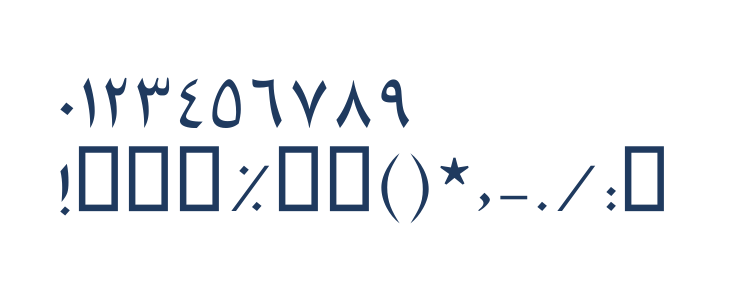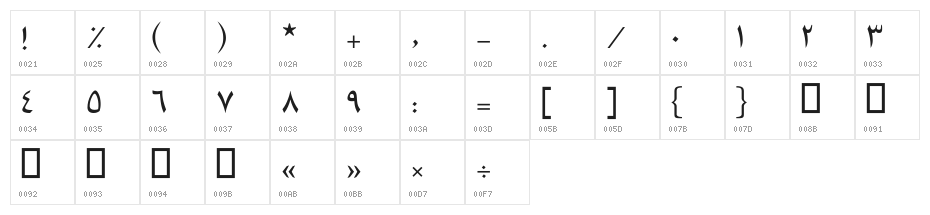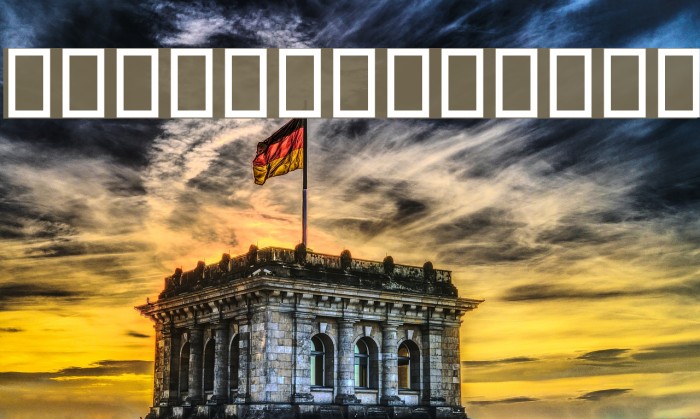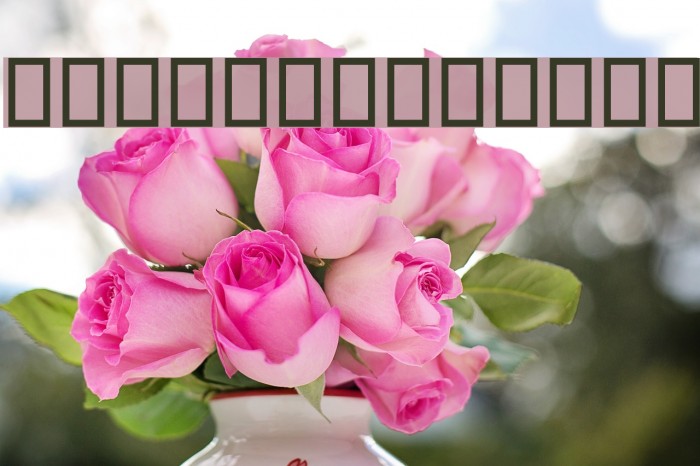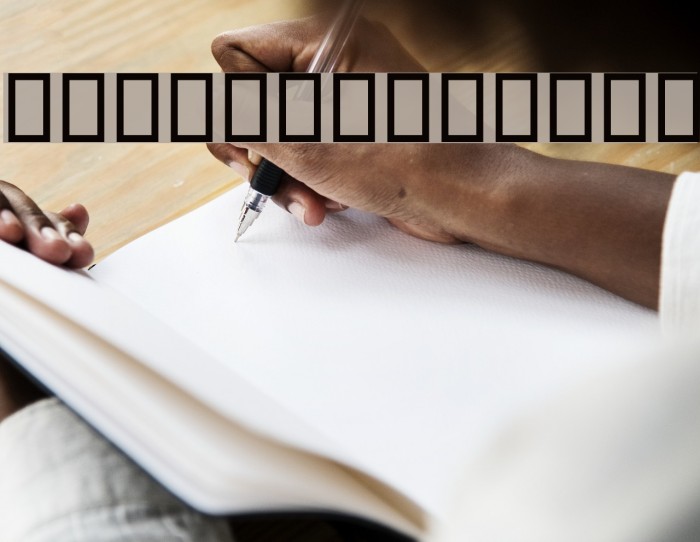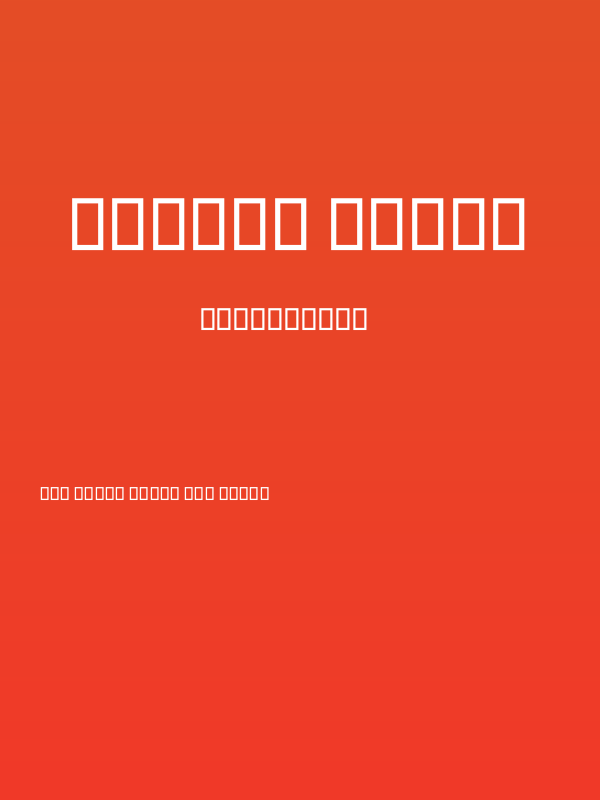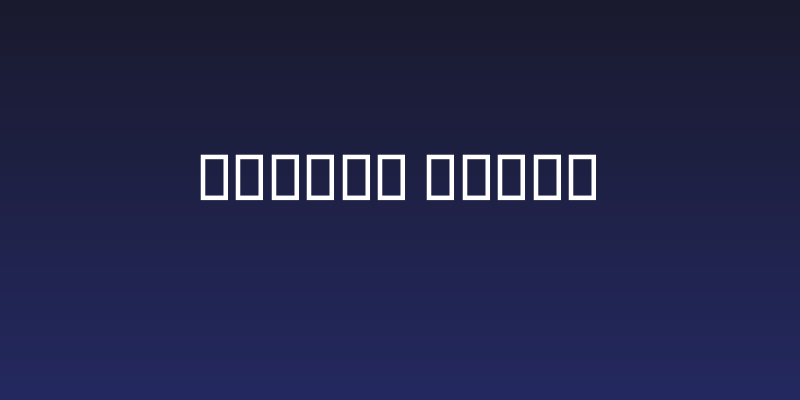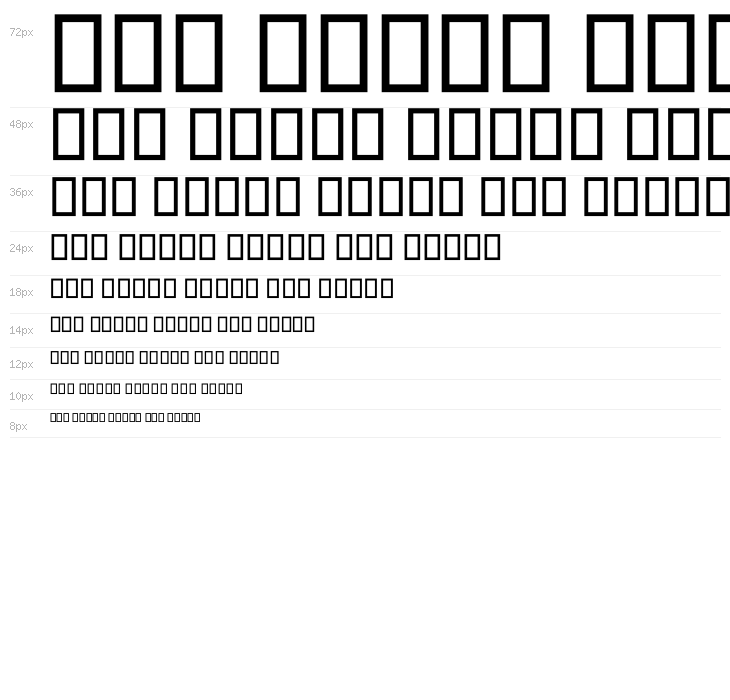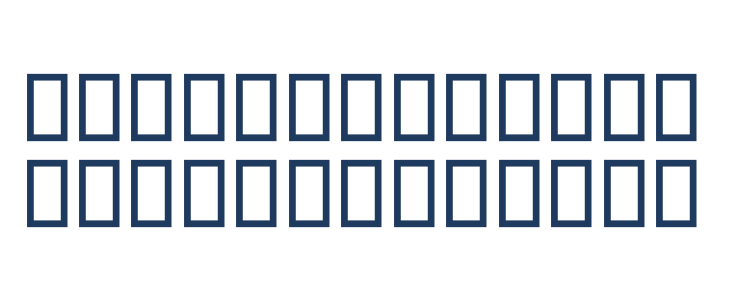
Faraah Light Font
Faraah Light Description
This font features a unique and artistic style with a flowing, calligraphic design. The characters are crafted with a sense of elegance and fluidity, showcasing a blend of traditional and modern elements. The numbers have a distinct, almost handwritten appearance, adding to the font's charm. The special characters are creatively designed, maintaining the overall aesthetic of the font. This style is suitable for projects that require a touch of sophistication and creativity.